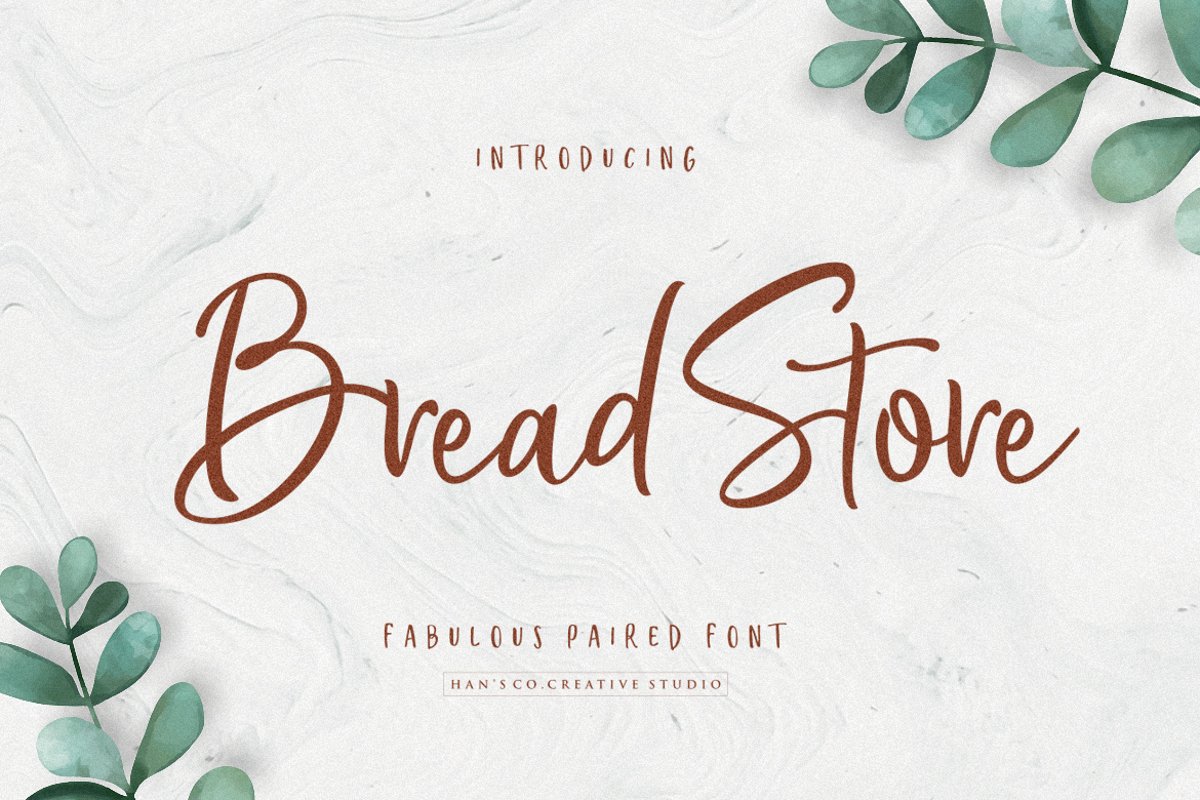
Bread Store Font
Bread Store is an fun script font duos designed with curly and comical style. It perfectly represents rustic in clean lines and modern way.
This font will make perfectly for elegant logo design, packaging or invitation cards. It also works wonderfully on its own for quotes, and more!